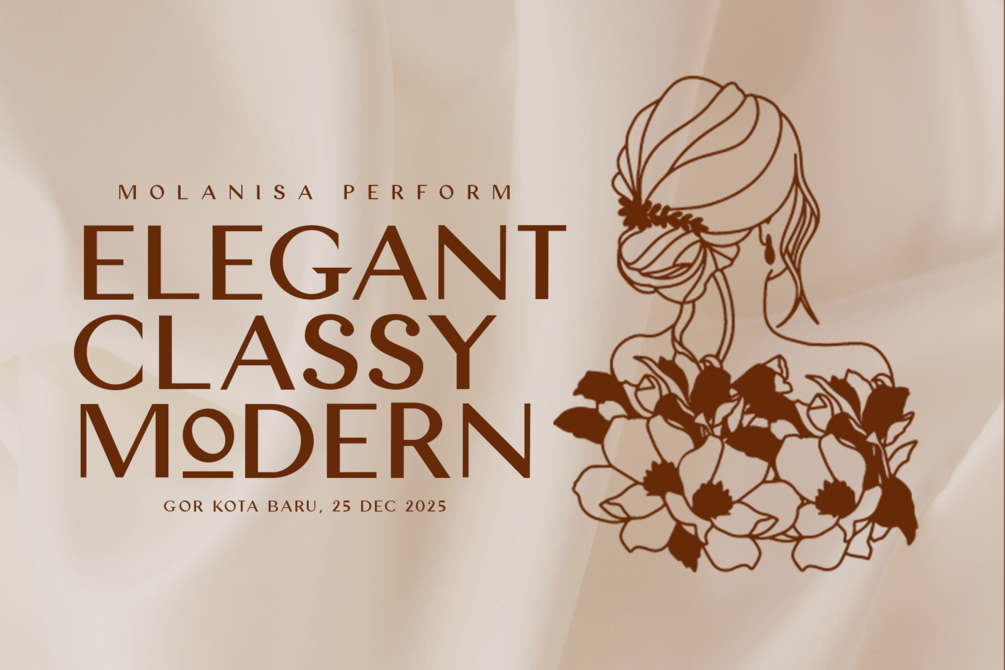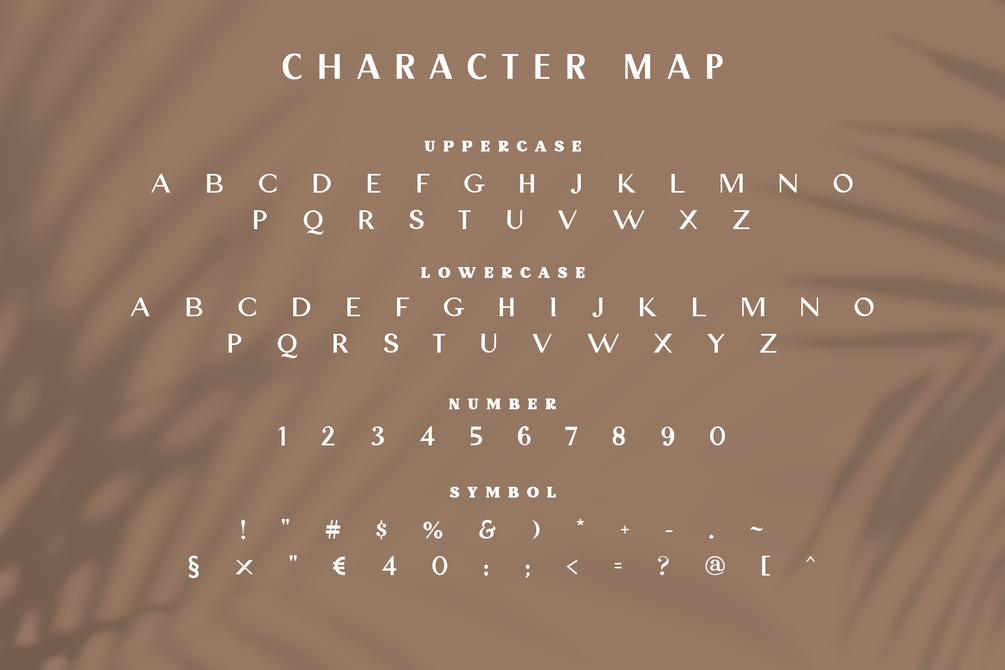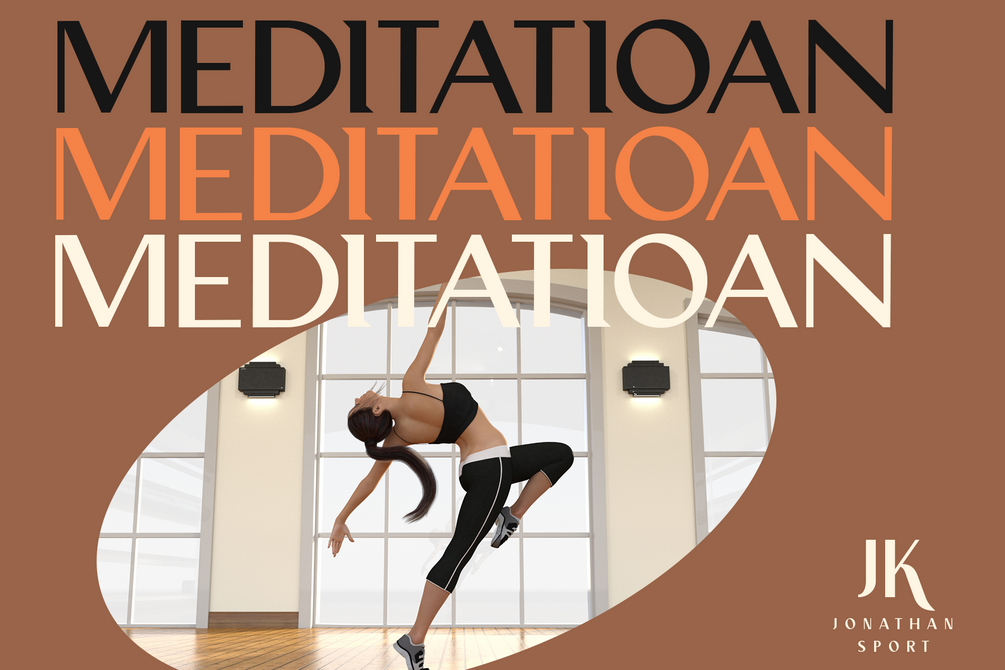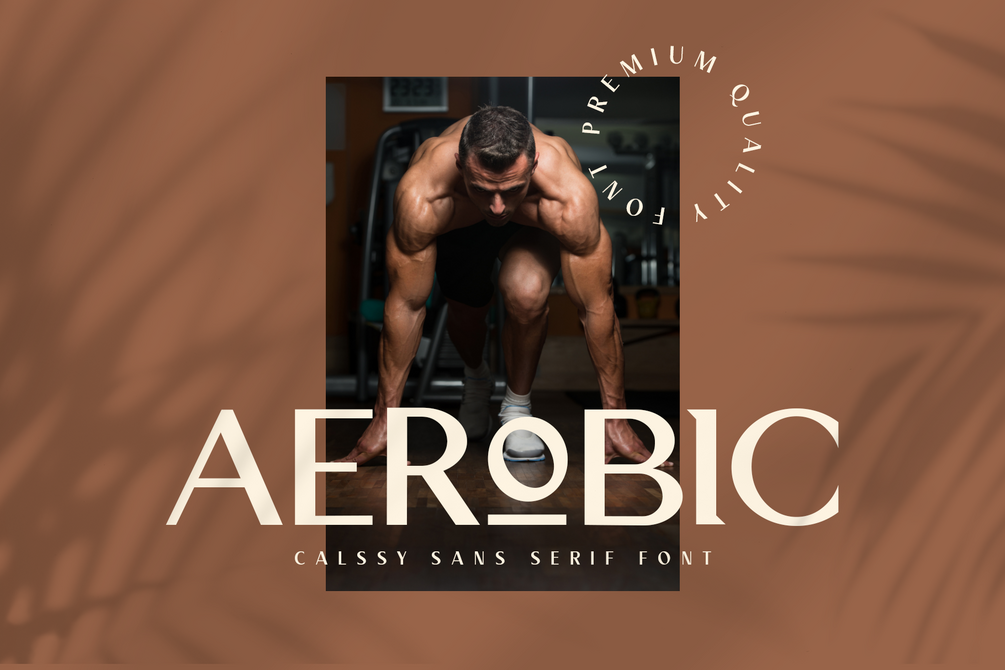
Aerobic
Aerobic is a modern and elegant sans serif font. It will add an incredibly unique and bold touch to your designs, so add it confidently and it will make them stand out!. This font all uppercase character. but don't worry, Some of them have alternate character.